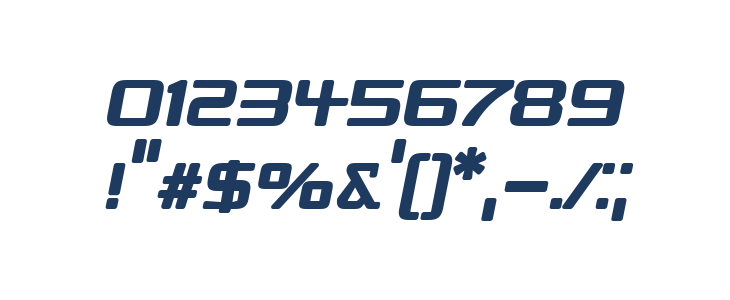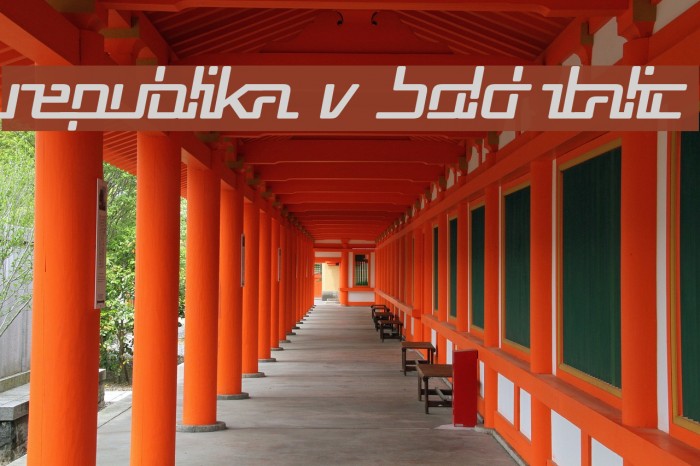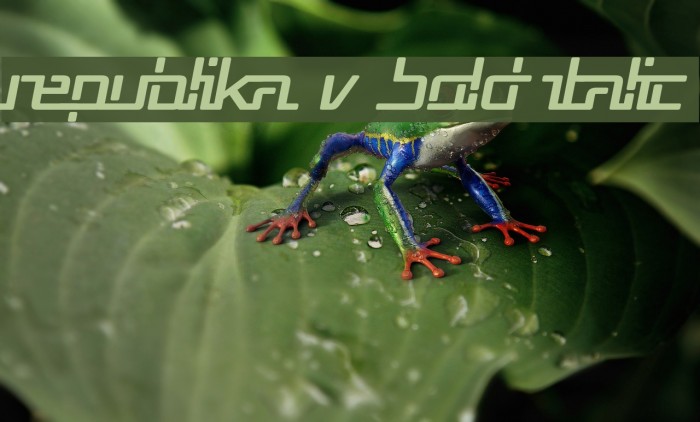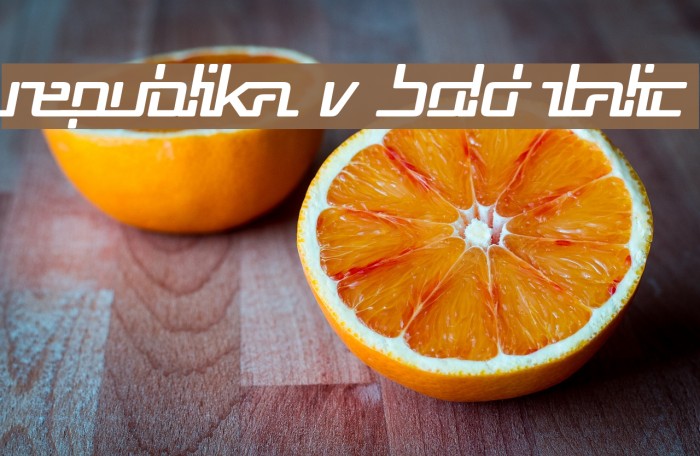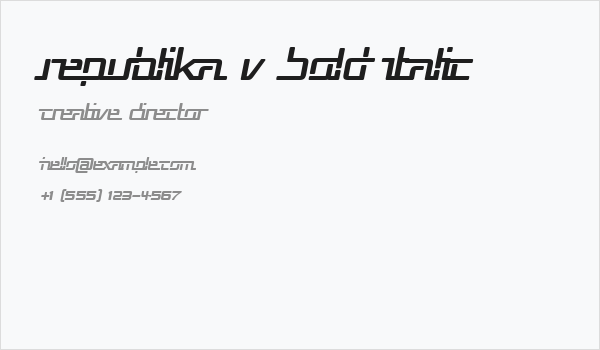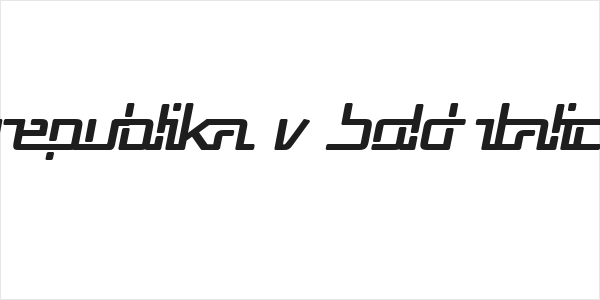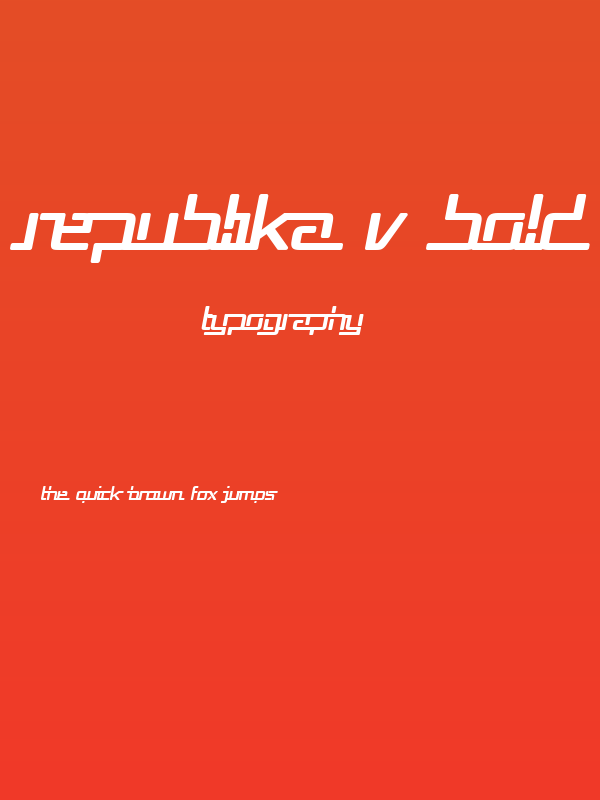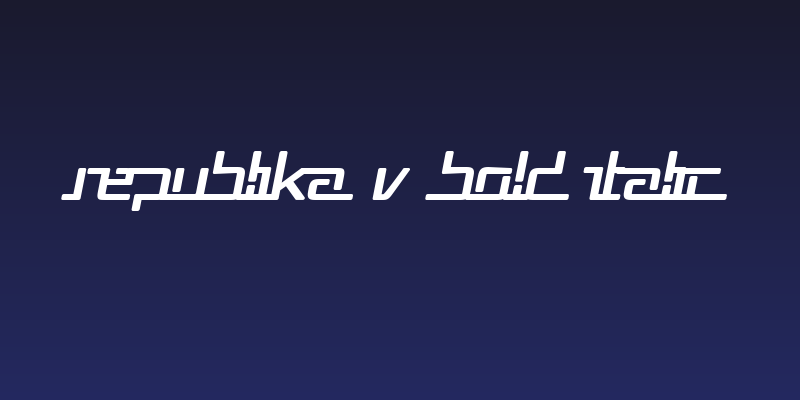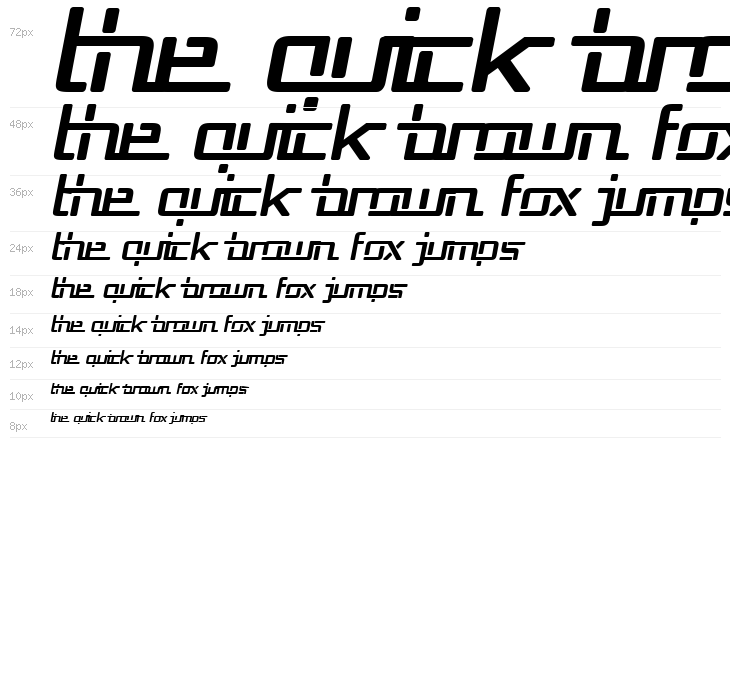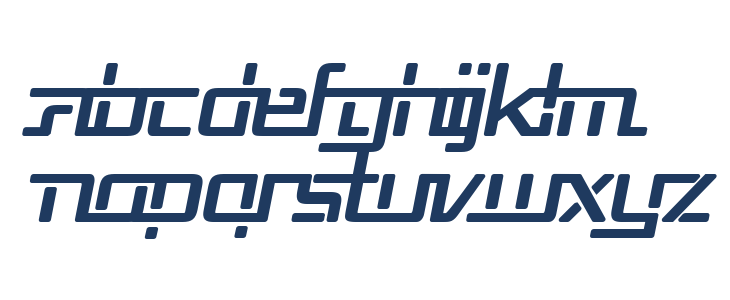
Republika V Bold Italic Font
Republika V Bold Italic Description
This font features a bold and italicized style with a futuristic and geometric design. The characters are interconnected with a continuous flow, creating a sense of movement and dynamism. The uppercase and lowercase letters maintain a consistent height, while the numbers and special characters are designed to match the overall aesthetic. The strokes are thick and uniform, contributing to a strong visual impact. This font is ideal for projects that require a modern and edgy look, such as technology branding, sports team logos, or dynamic advertising campaigns.
| Use Case | Logos, Headlines |
| Proposed Projects | Ideal for technology branding, sports logos, and dynamic advertising. |